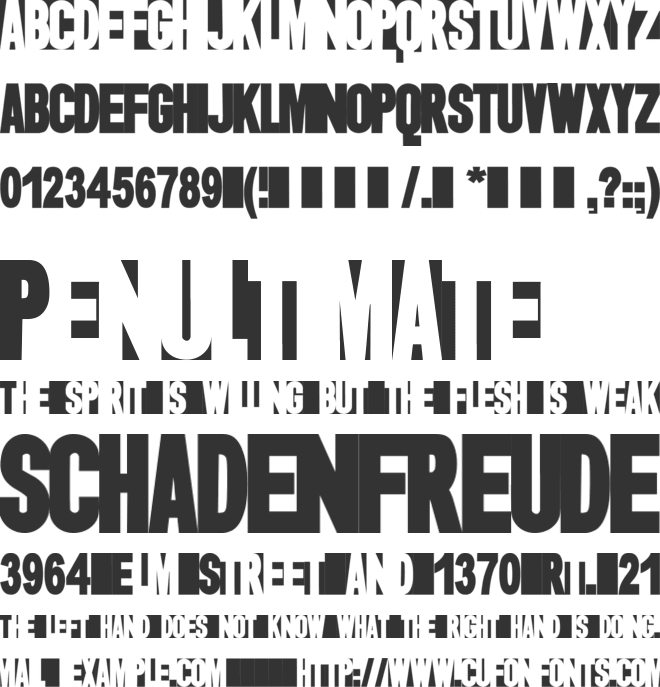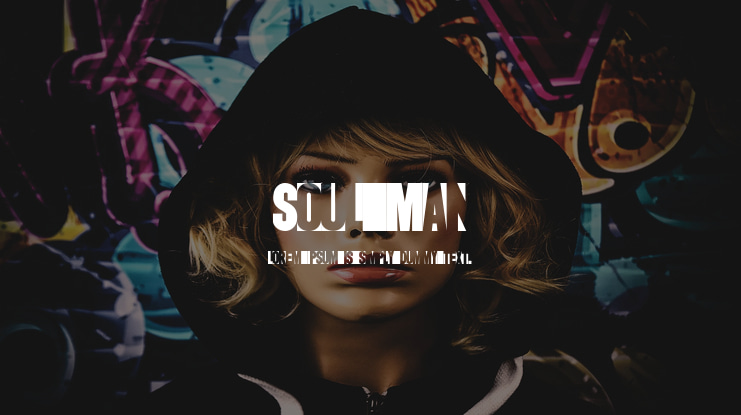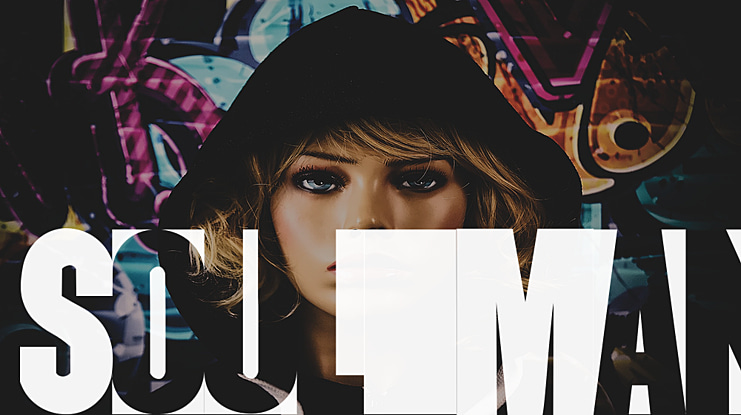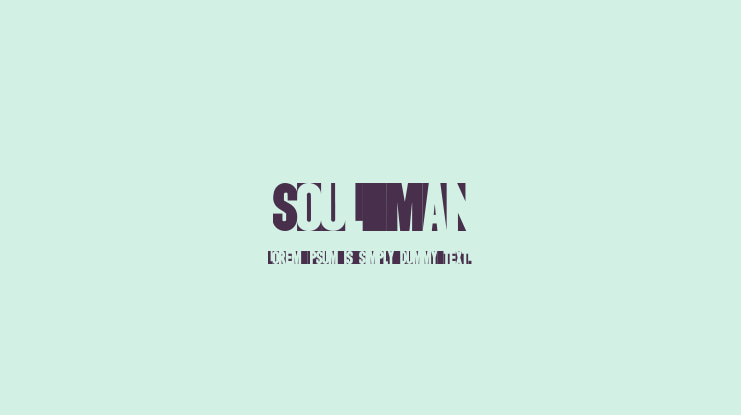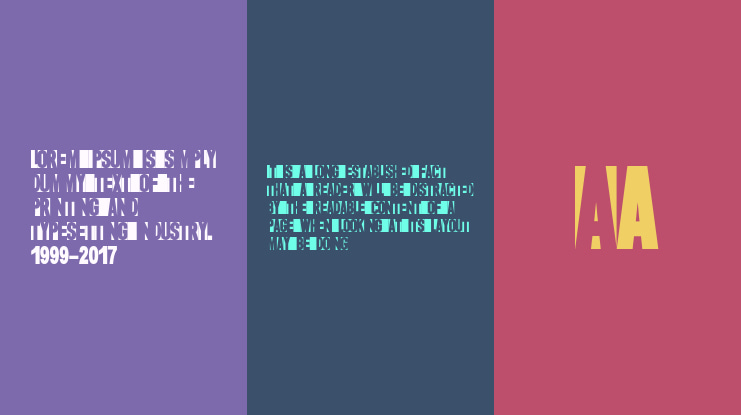
Soul Man Font Family
P. A. Vannucci
Directly from the film directed by Steve Minere starring C. THOMAS HOWELL and RAE DAWN CHONG, the unpublished font for all admirers of the film.
Direttamente dal film diretto da Steve Minere interpretato da C. THOMAS HOWELL e RAE DAWN CHONG, il font inedito per tutti gli estimatori del film.